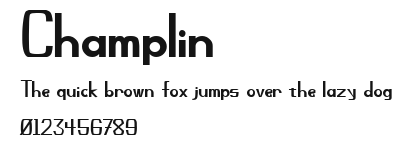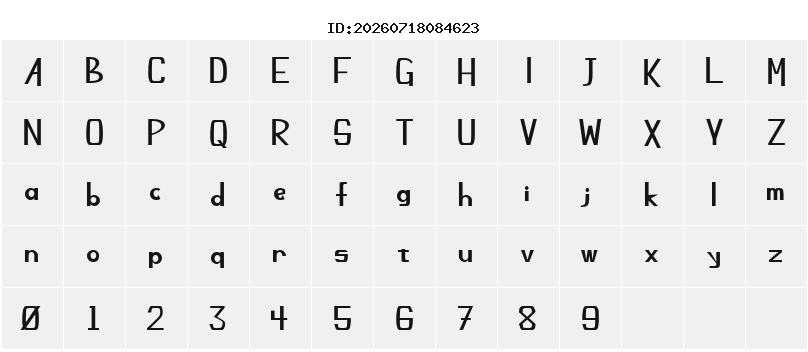
• Font Name: Champlin
• Full Font Name: Champlin Regular
About Champlin.ttf
Champlin.ttf is a modern, elegant sans-serif font designed for ultimate readability and visual harmony. Perfect for branding, headlines, web design, and print materials.